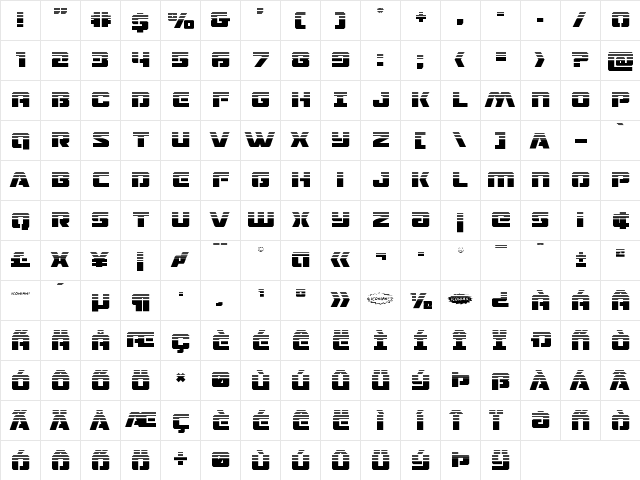
Drone Tracker Halftone Regular
Drone Tracker Halftone is a composed and adaptable typeface that performs quietly and consistently across a wide range of design contexts.